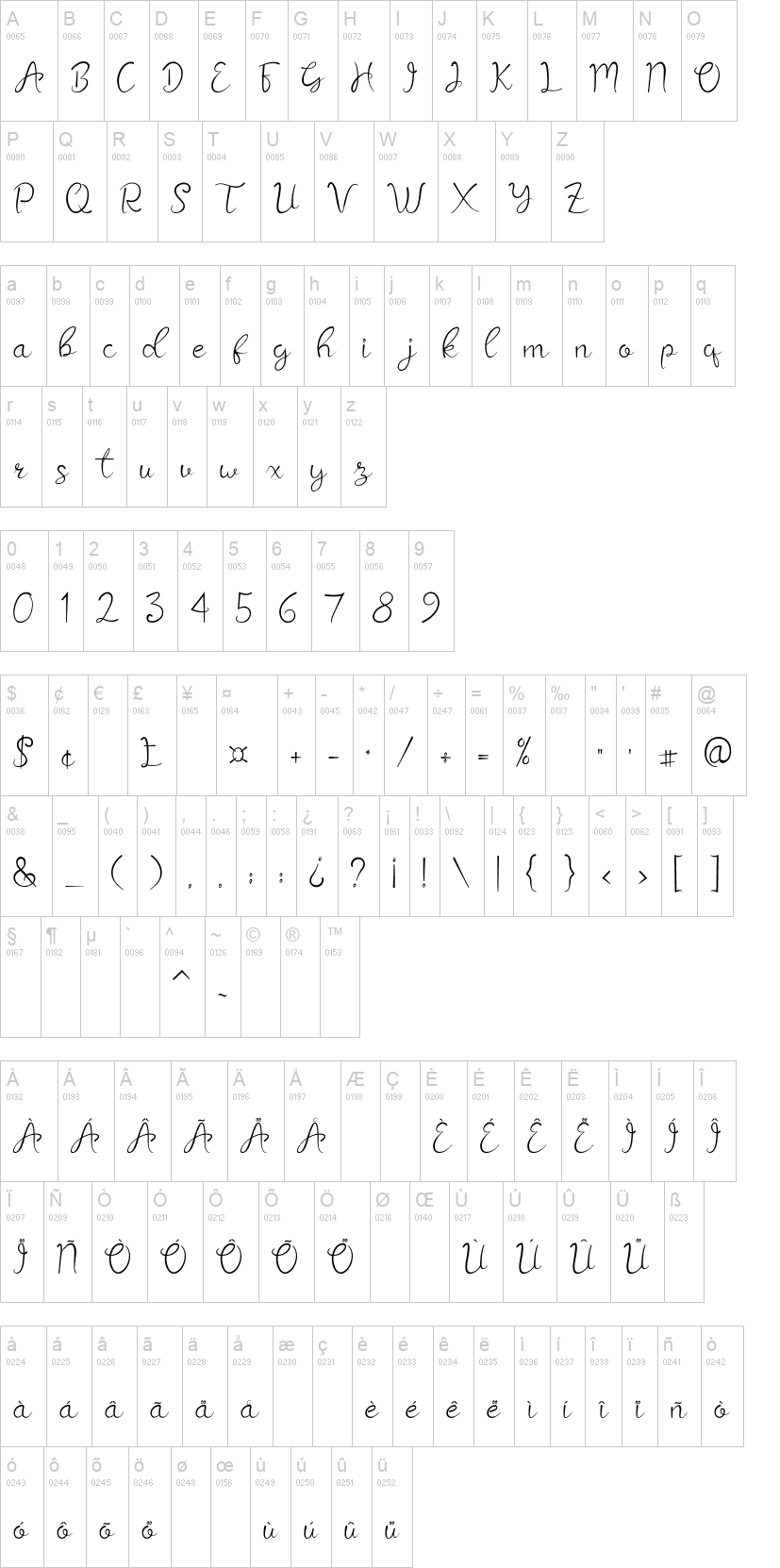
Note of the authorFondy is a beautiful light handwritten font with a unique feel and a stunning impact. It will add a luxury spark to any design project that you wish to create! This font is PUA encoded which means you can access all of the amazing glyphs and ligatures with ease!